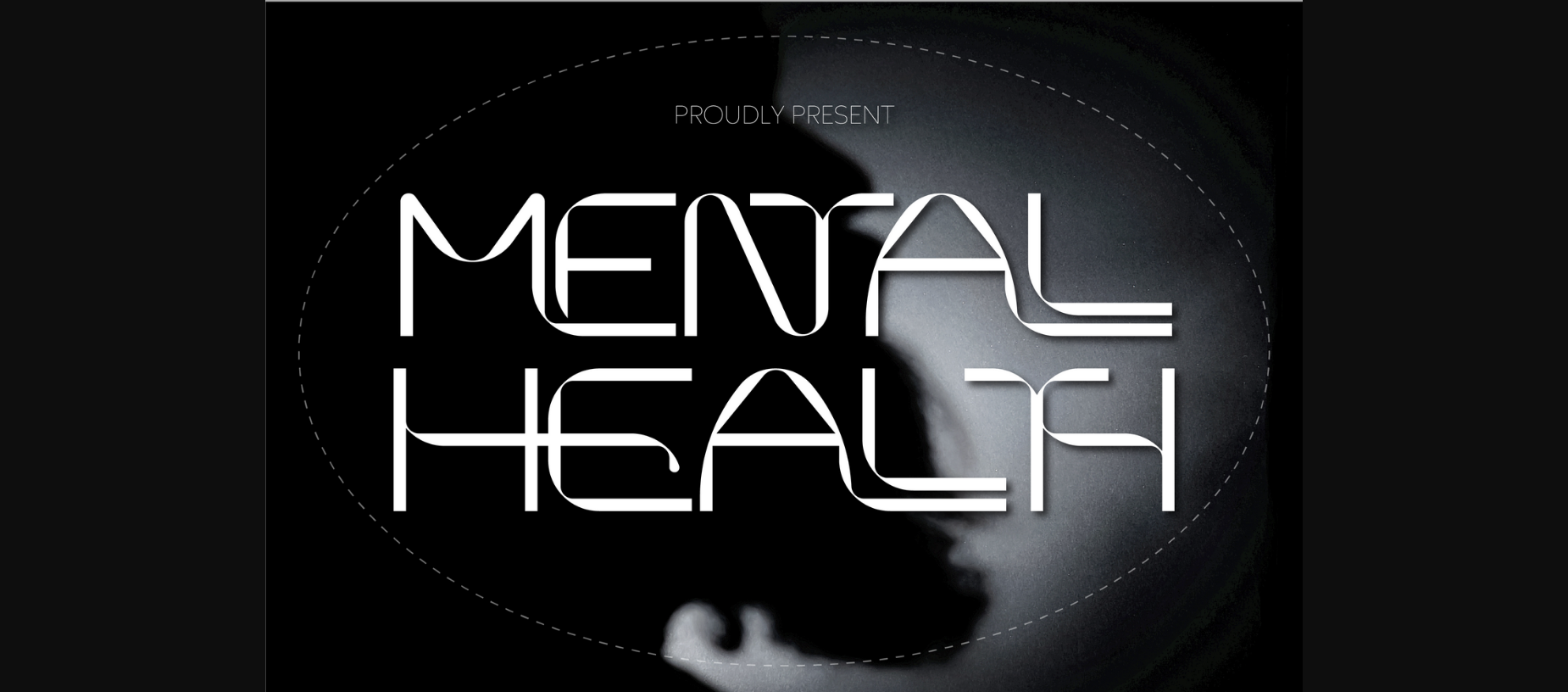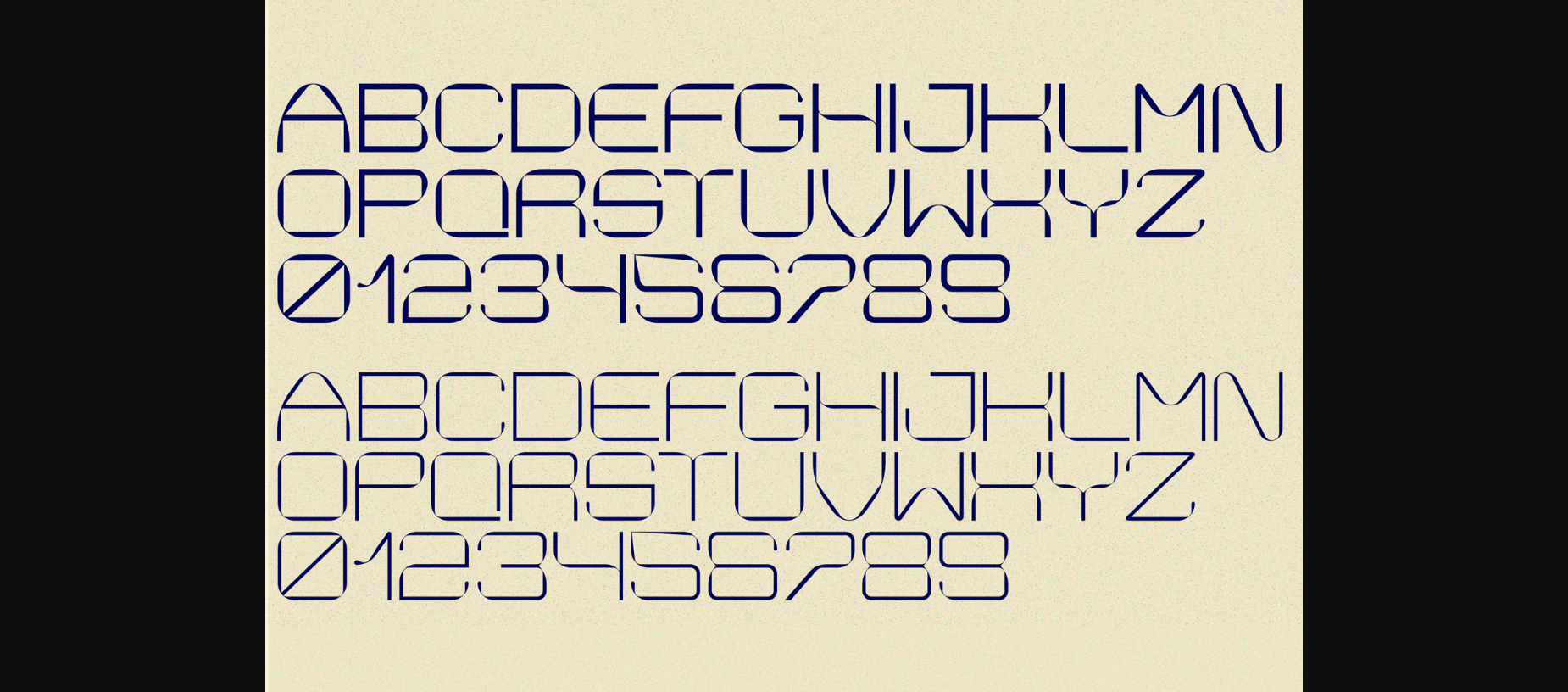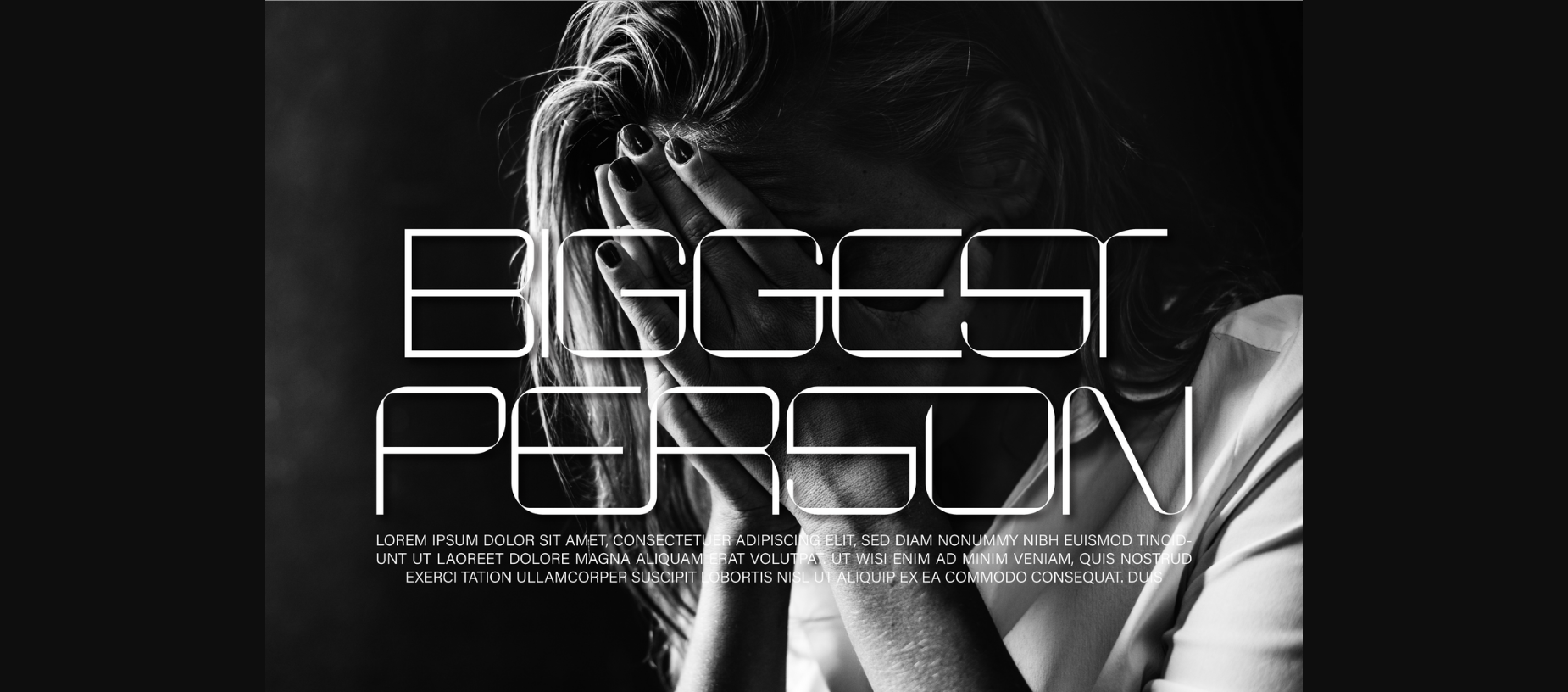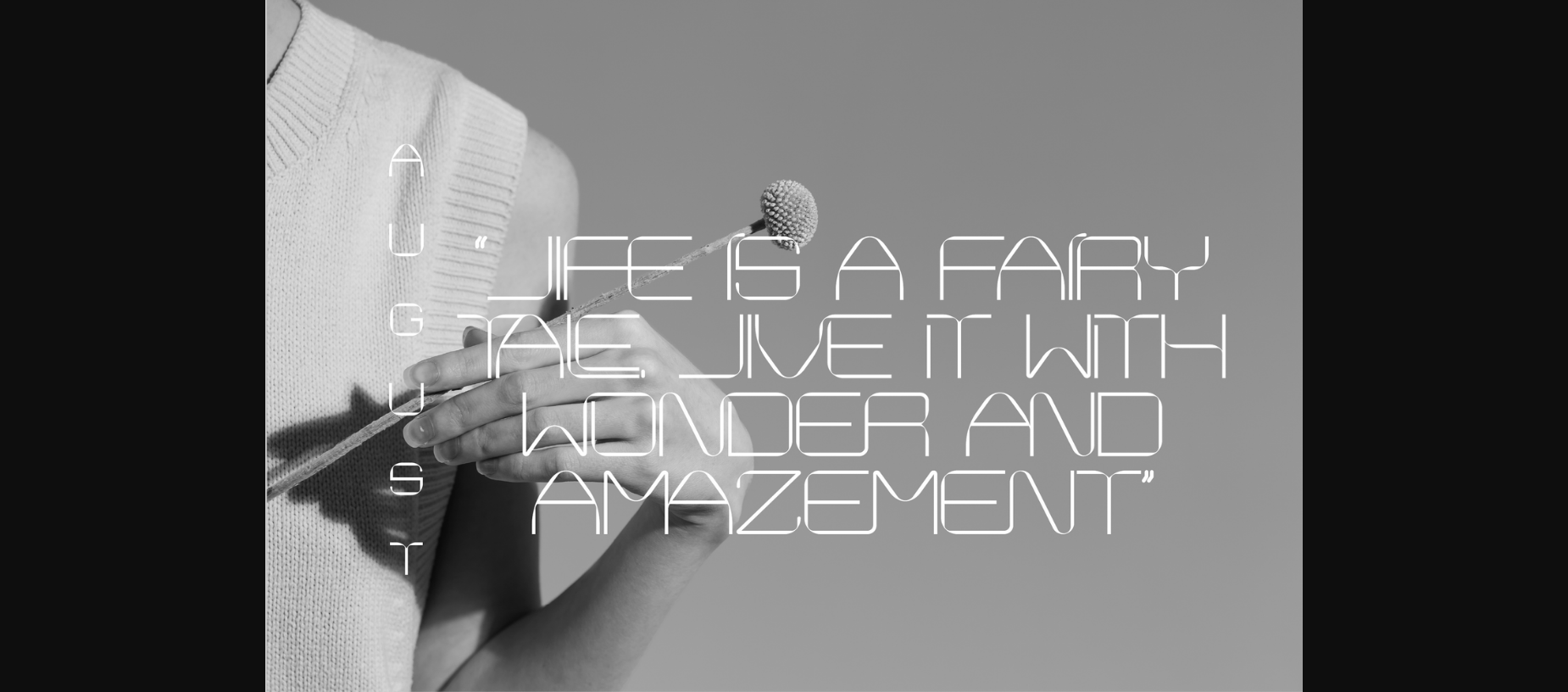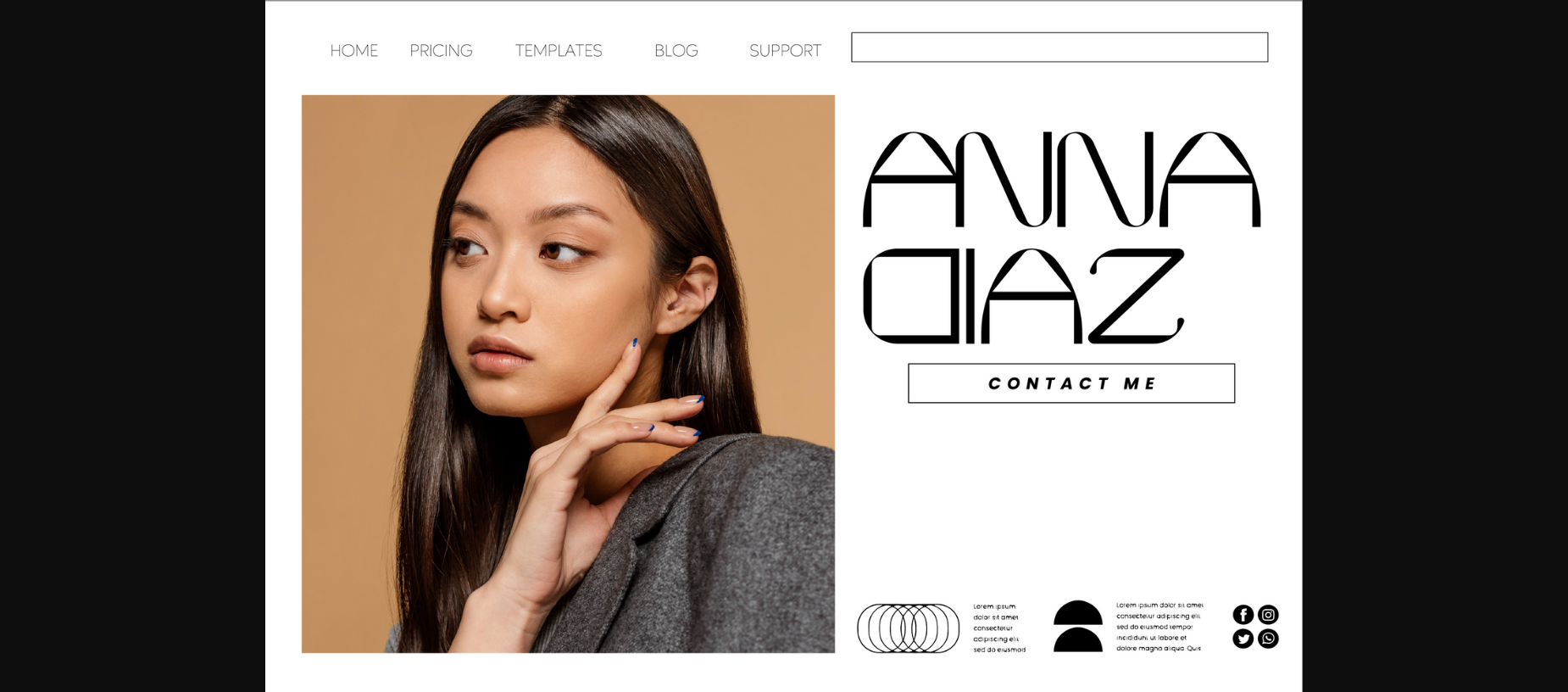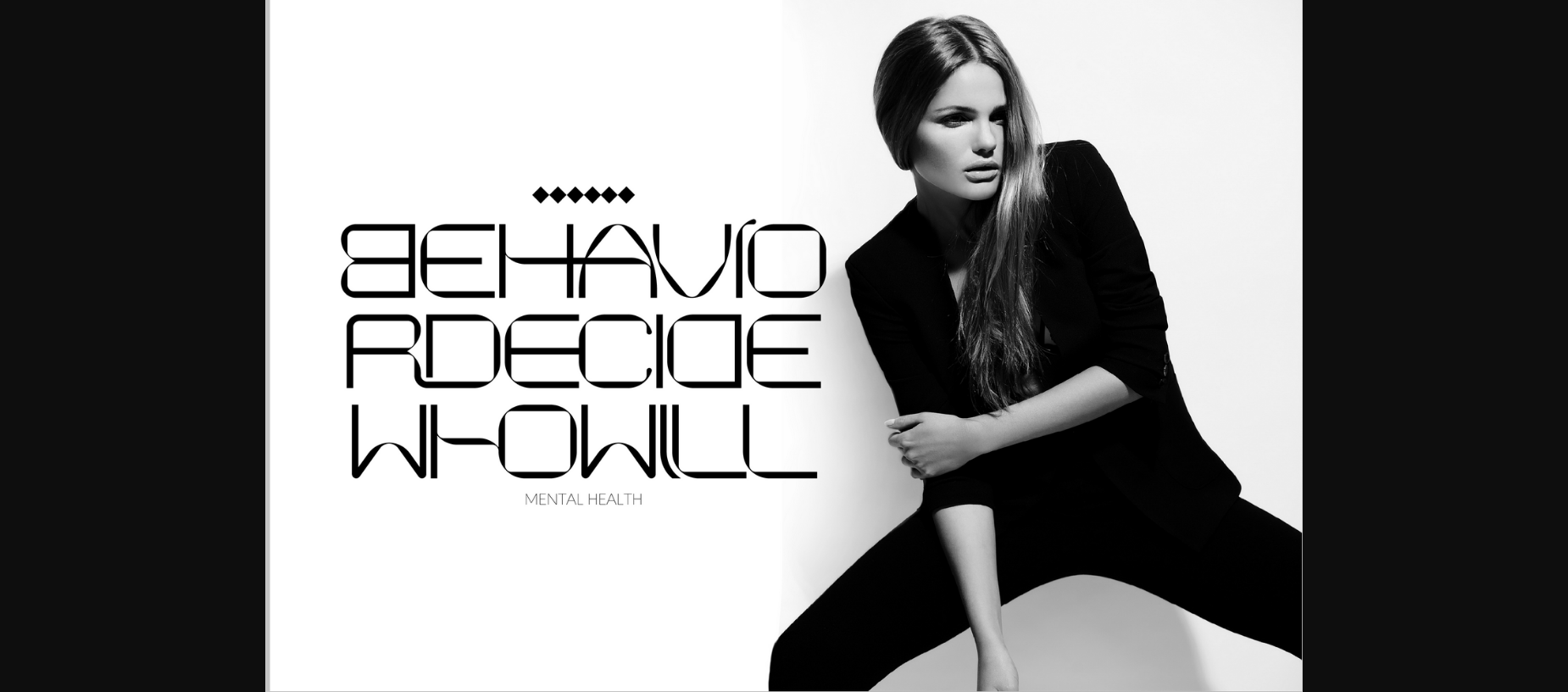
Mental Health Font
About Mental Health Font
Mental Health is a modern and futuristic sans serif font. The combination of futuristic and geometric elements renders a modern design. This font is perfect for any branding, logos, magazines, videos, weddings, quotes, print, product packaging, website, clothing designs and much more.